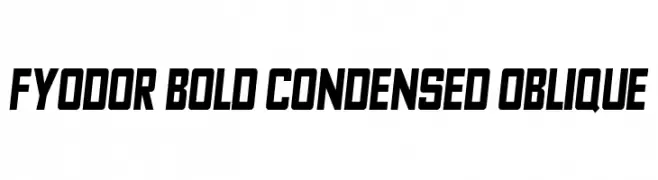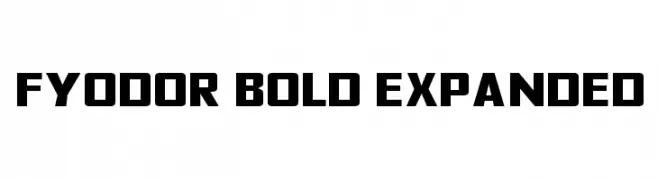
• Futurex Bold
A futuristic, geometric font with bold, clean lines and a modern aesthetic.
• Futurex BoldOblique
A bold, oblique font with a modern and dynamic style.
• Futurex Metal-gear Bold
A bold, futuristic font with a metallic, gear-like design.
• FUTURISM Bold
A bold, futuristic font with geometric and angular design elements.
• FUTURISTIC Bold
A bold, futuristic font with geometric and angular design elements.
• FUZZY bold
A bold, distressed font with a vintage, rugged appearance.
• Fyodor Bold
A bold, geometric font with strong, blocky letterforms.
• Fyodor Bold Condensed
A bold, condensed font with a geometric and modern style.
• Fyodor Bold Condensed Oblique
Bold, condensed, and oblique font with a modern and dynamic style.
• Fyodor Bold Expanded
A bold, expanded font with uniform strokes and a modern, impactful style.